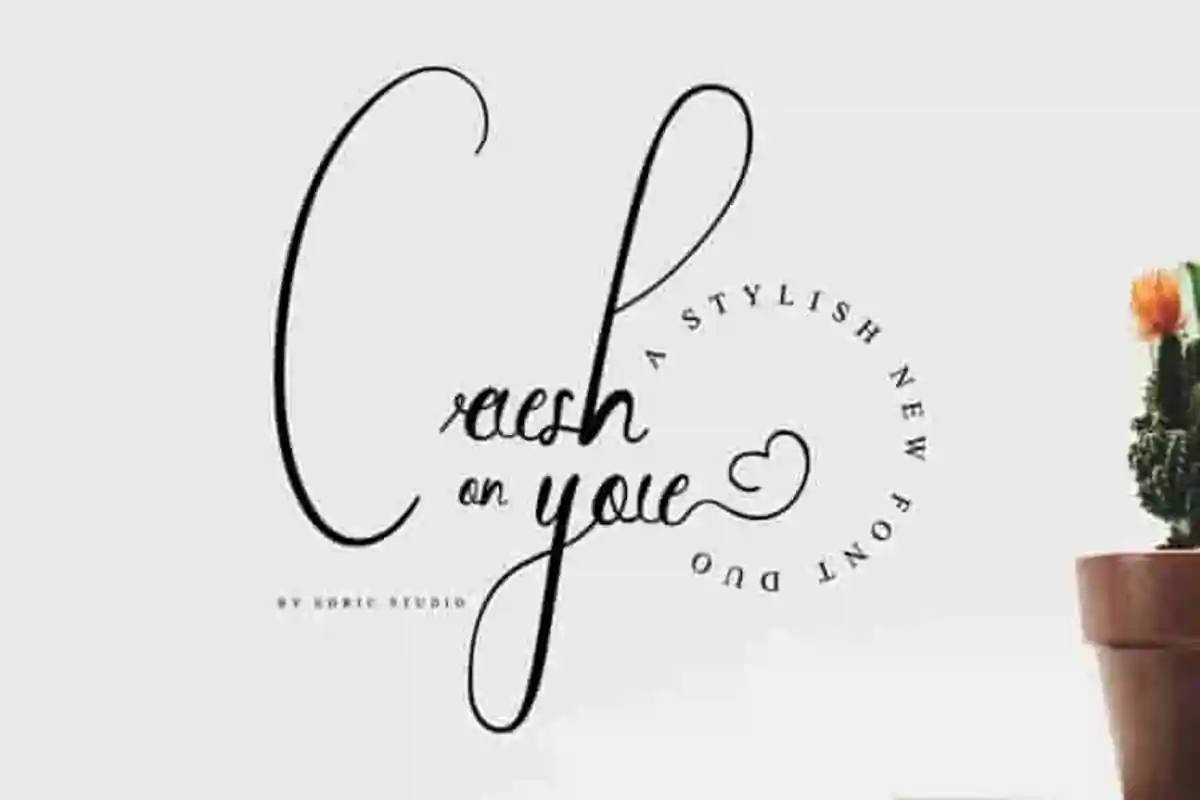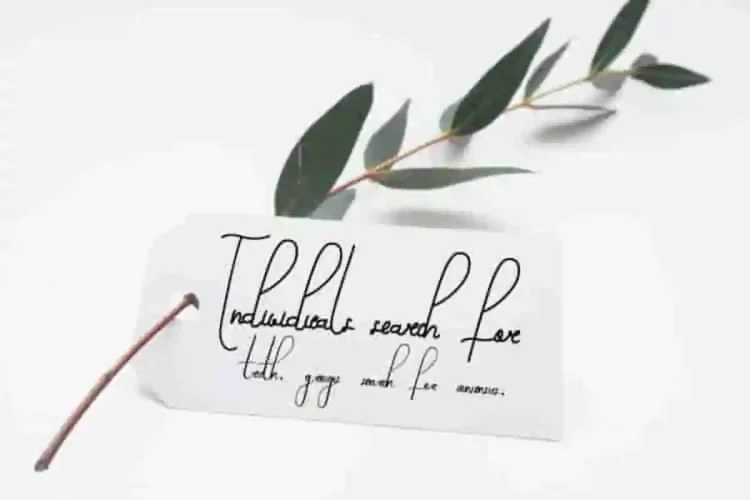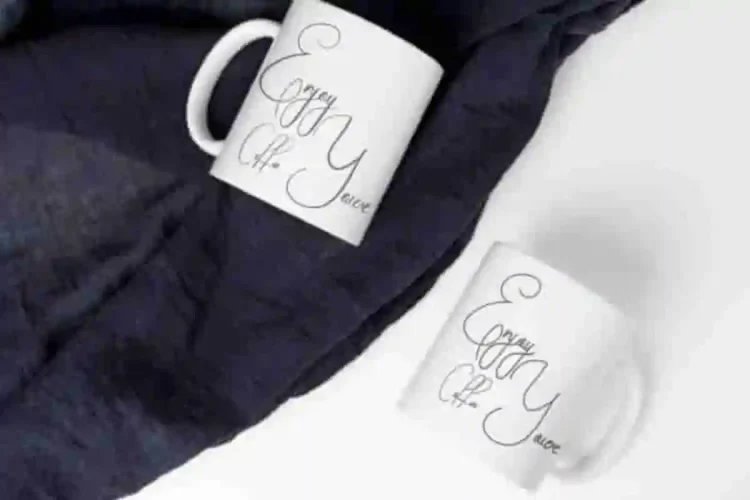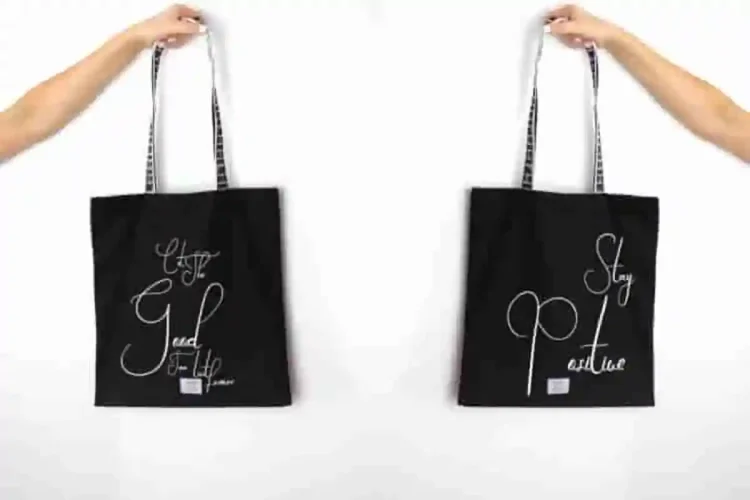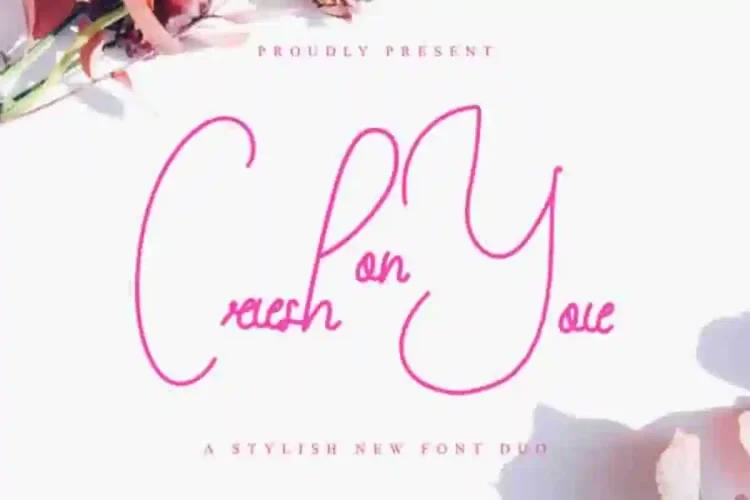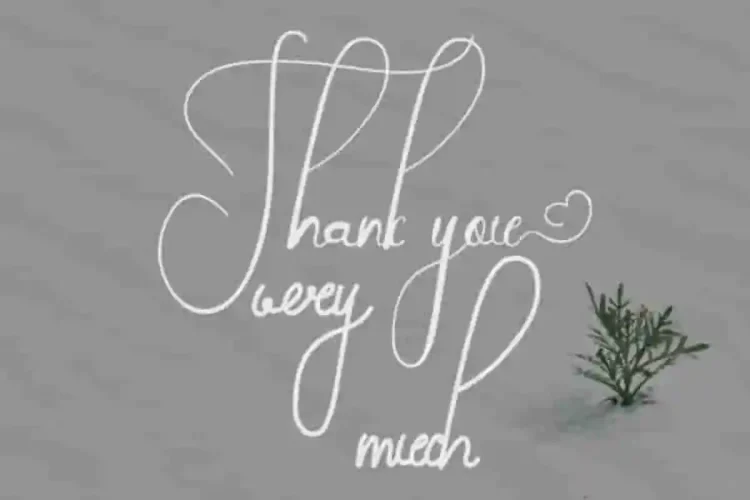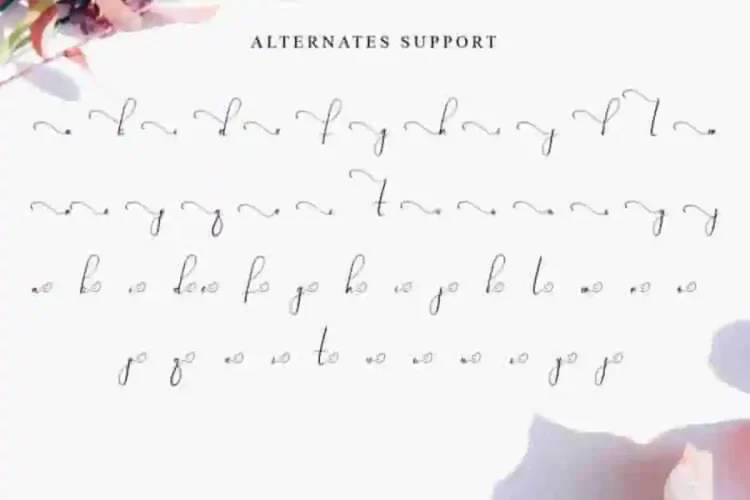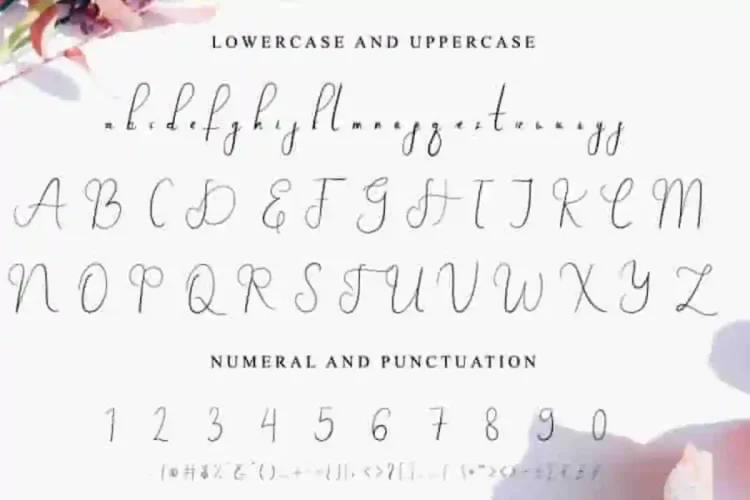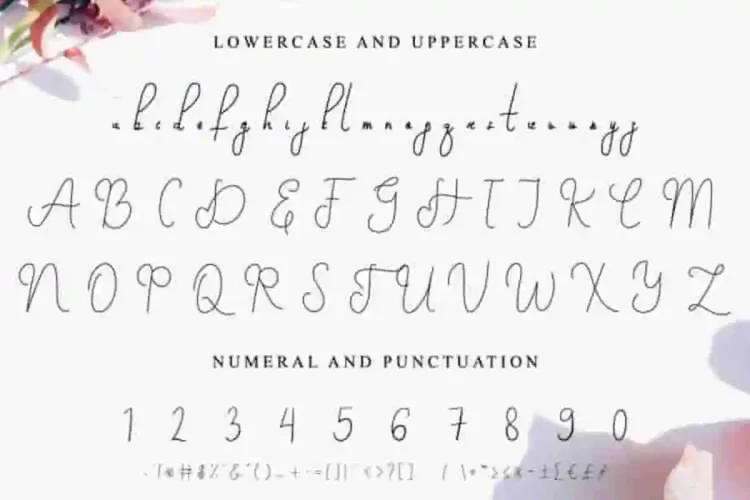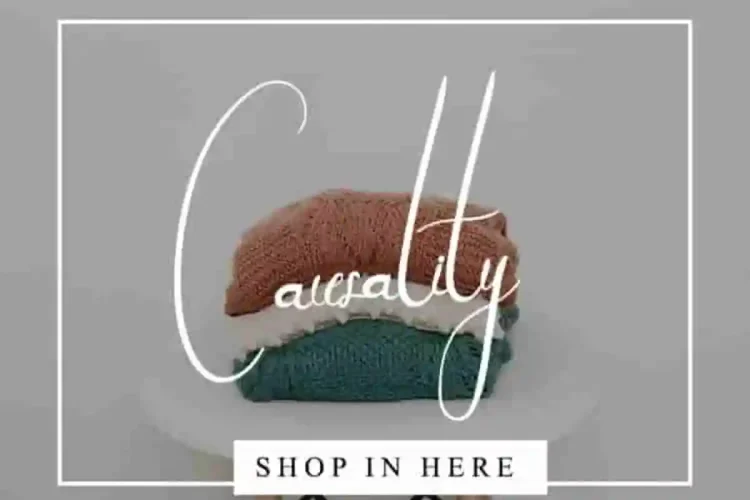
Crush On You Calligraphy Font Duo
This is the newest font from our lovely artists : Saila and Sarah. This is a duo typeface,  handcrafted from our Studio. Situated here in Garut and Bandung, Indonesia. Made with love and passion. :)
Crush On You Calligraphy Font Duo is an exclusive duo typeface with unique and elegant style. The typeface has a stunning characters set, perfectly kerned and spaced. The style character of this font is elegant, stylish, sophisticated and classic brush calligraphic style. It’s exclusive you wont find any where-else, the font like Crush On You Font.
Crush On You Calligraphy Font Duo will be great for any projects including : branding, logo, stationery, business card, signage, flyer, brochure etc. Almost all industries will be match for this typeface: wedding, events, real estate, architect, law firm, florist, gardening, makeup artist, travel, hotel, musician etc.
Crush On You Calligraphy Font Duo has two styles : Monoline and Calligraphy